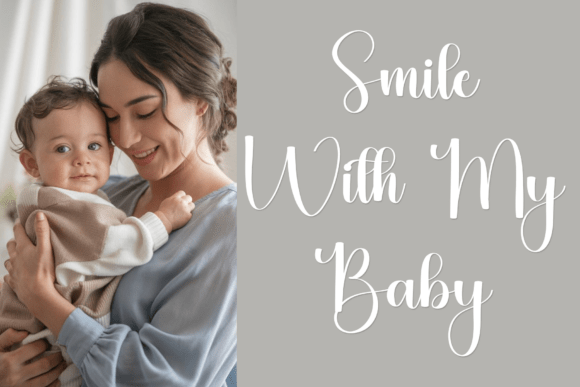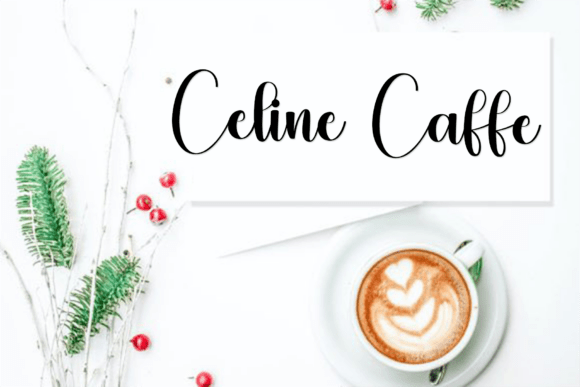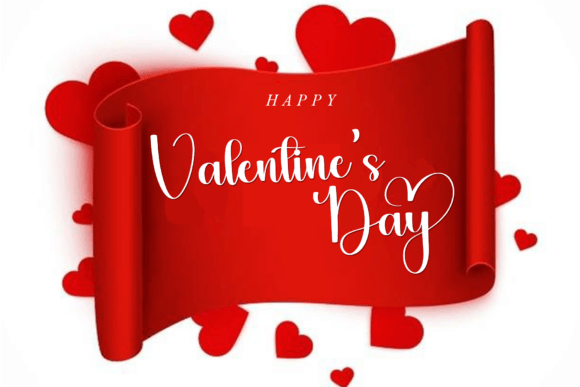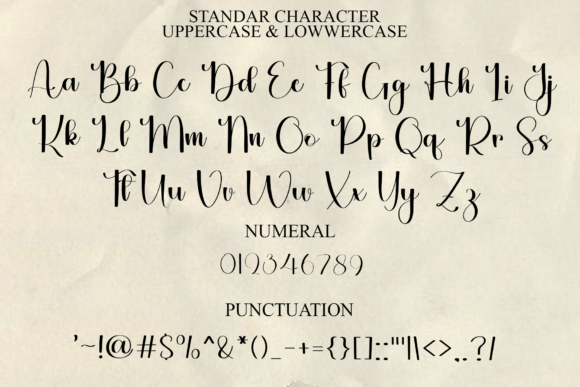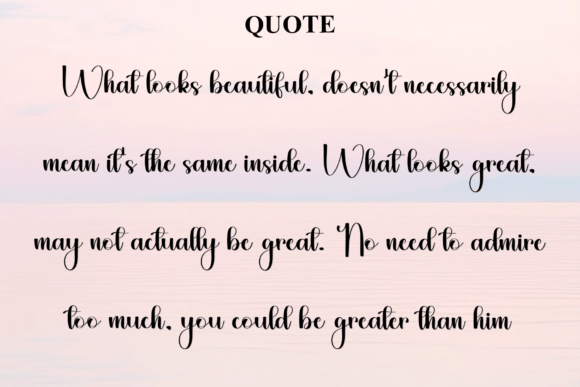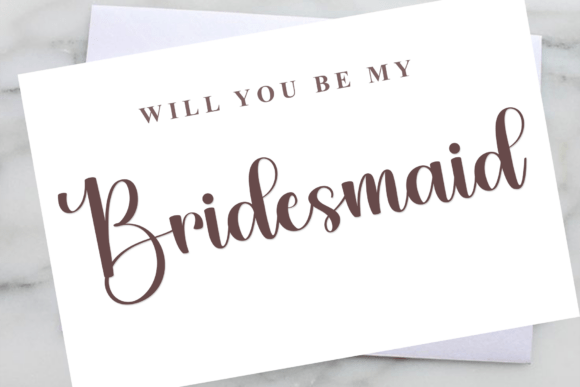
The Magic of the Holiday Season: Introducing Brittany Font
As the snowflakes start to fall and the twinkling lights adorn your home, there’s something special about the holiday season that sparks our creativity. For many of us, it’s the perfect time to get crafty and make our loved ones feel extra special. Whether it’s a handmade card or a thoughtful gift tag, we want our designs to shine with a touch of magic and wonder.
That’s where Brittany Font comes in – a festive and merry typeface that captures the spirit of the holiday season. With its decorative elements and whimsical flair, this font adds a touch of enchantment to your designs, making it perfect for greeting cards, gift tags, and holiday-themed projects. As a designer, you’ll love Brittany Font for its ability to bring a cheerful and nostalgic ambiance to your words, making it a valuable addition to your typography toolkit.
Brittany Font Key Features
- Unique Characteristics: Elegant script font with a touch of vintage charm, suitable for invitations, greeting cards, and other creative projects
- Font Style: Script, Casual
Brittany Font Review
When I first laid eyes on the Brittany Font, I was immediately drawn to its elegance and sophistication. ✨ The flowing curves and classic feel make it perfect for formal designs, such as wedding invitations or luxury branding. The font’s versatility shines through in its ability to work well in both serif and script styles.
One of the standout features of the Brittany Font is its excellent legibility, making it easy to read even in smaller font sizes. ✨ The font’s balance of form and function is impressive, and it’s clear that the designers put a lot of thought into its creation. Additionally, the font’s compatibility with various devices and operating systems is a major plus.
- ⚠️ Limited character set: The Brittany Font may not support as many languages or special characters as other fonts.
- ⚠️ Not ideal for body text: While the font is beautiful for headings and titles, it may not be the best choice for large blocks of body text due to its elegance being somewhat compromised by larger text sizes.
Overall, I’m impressed with the Brittany Font’s beauty and versatility. While it may have some limitations, it’s a great choice for designers looking to add a touch of sophistication to their designs. With careful usage, the Brittany Font can elevate even the most mundane designs to new heights.
Tips for Getting the Most Out of the Brittany Font
Use the Brittany Font for designs that require a touch of elegance and sophistication. It pairs well with serif fonts for a classic look or with sans-serif fonts for a modern look.
The Brittany Font is ideal for:
Branding and marketing materials
Editorial and publishing projects